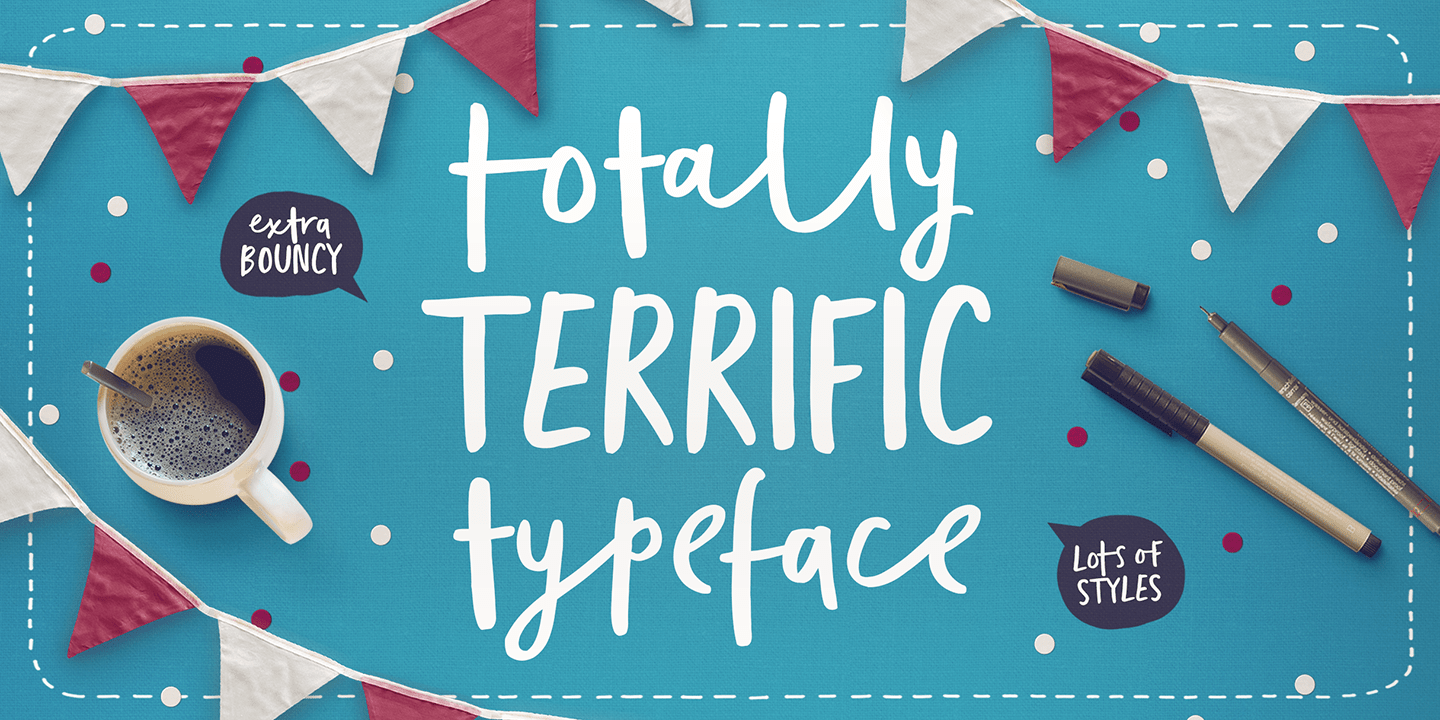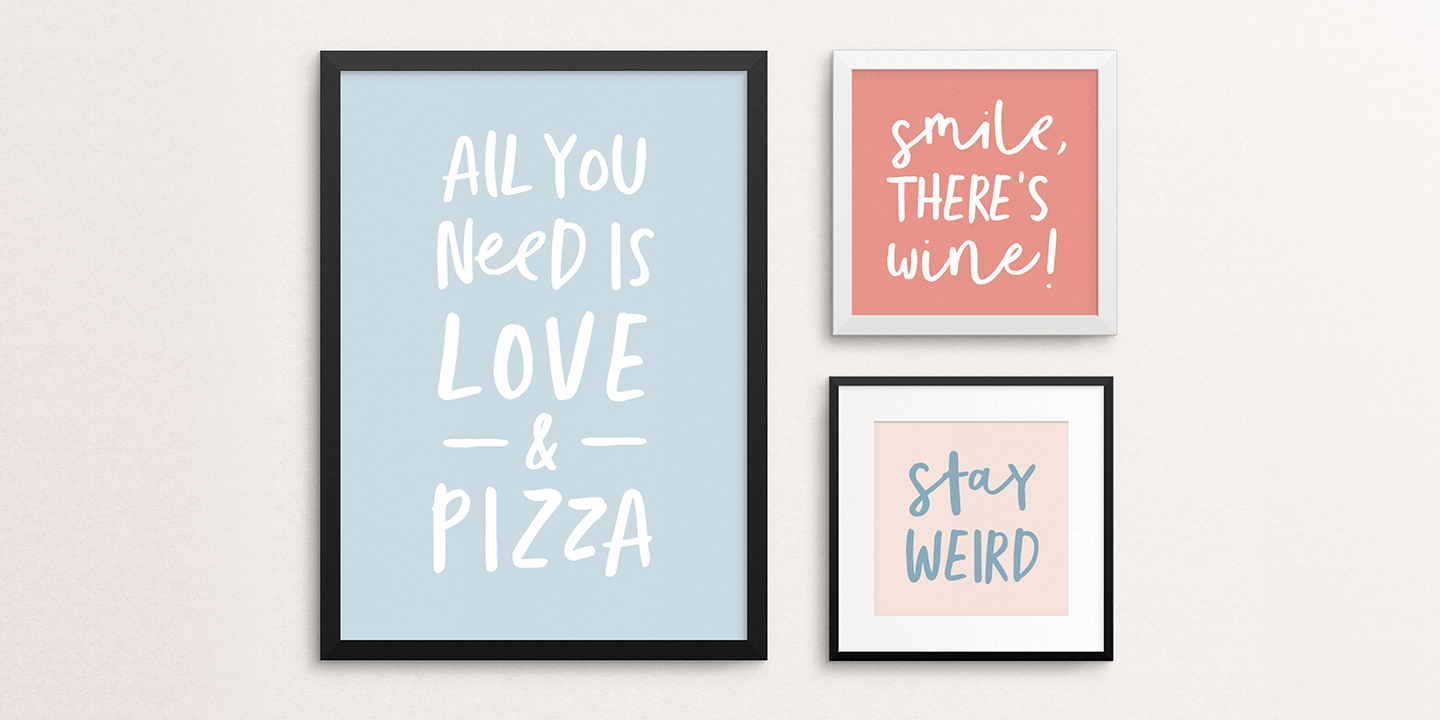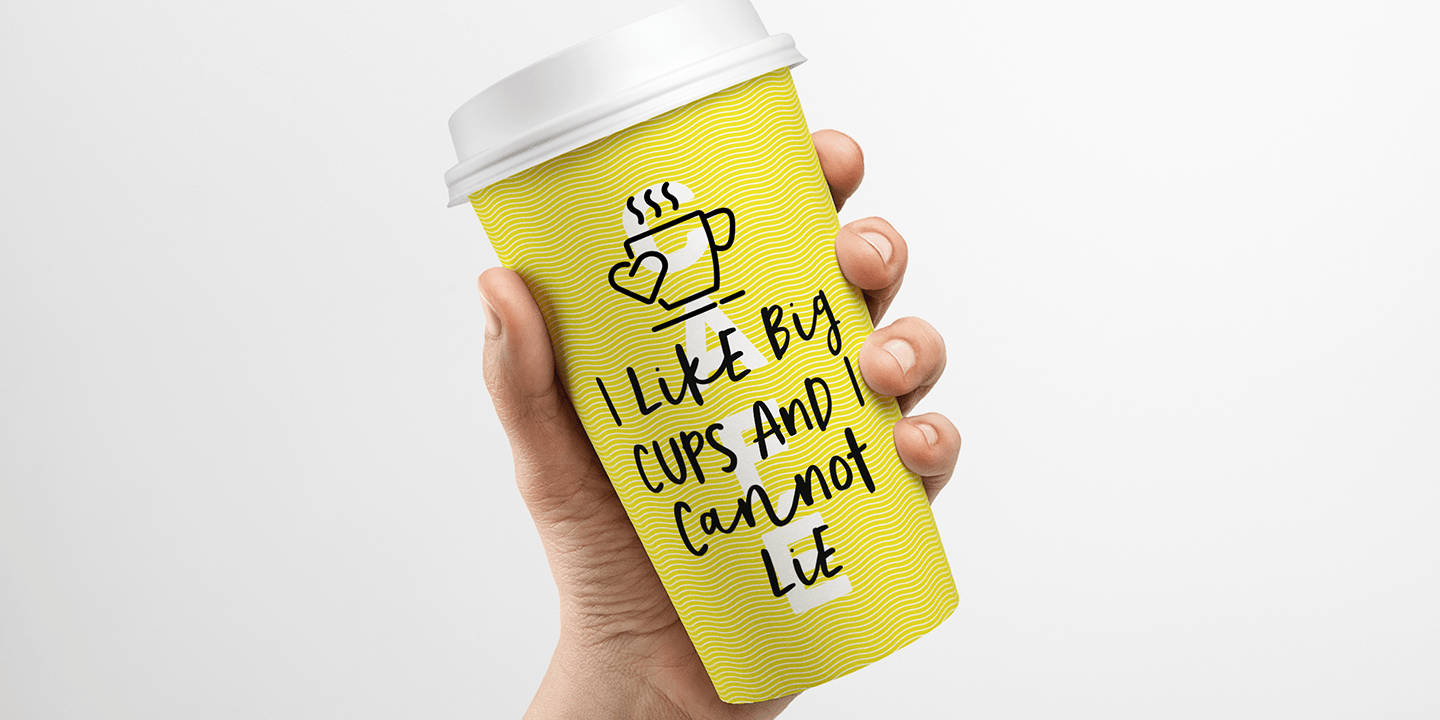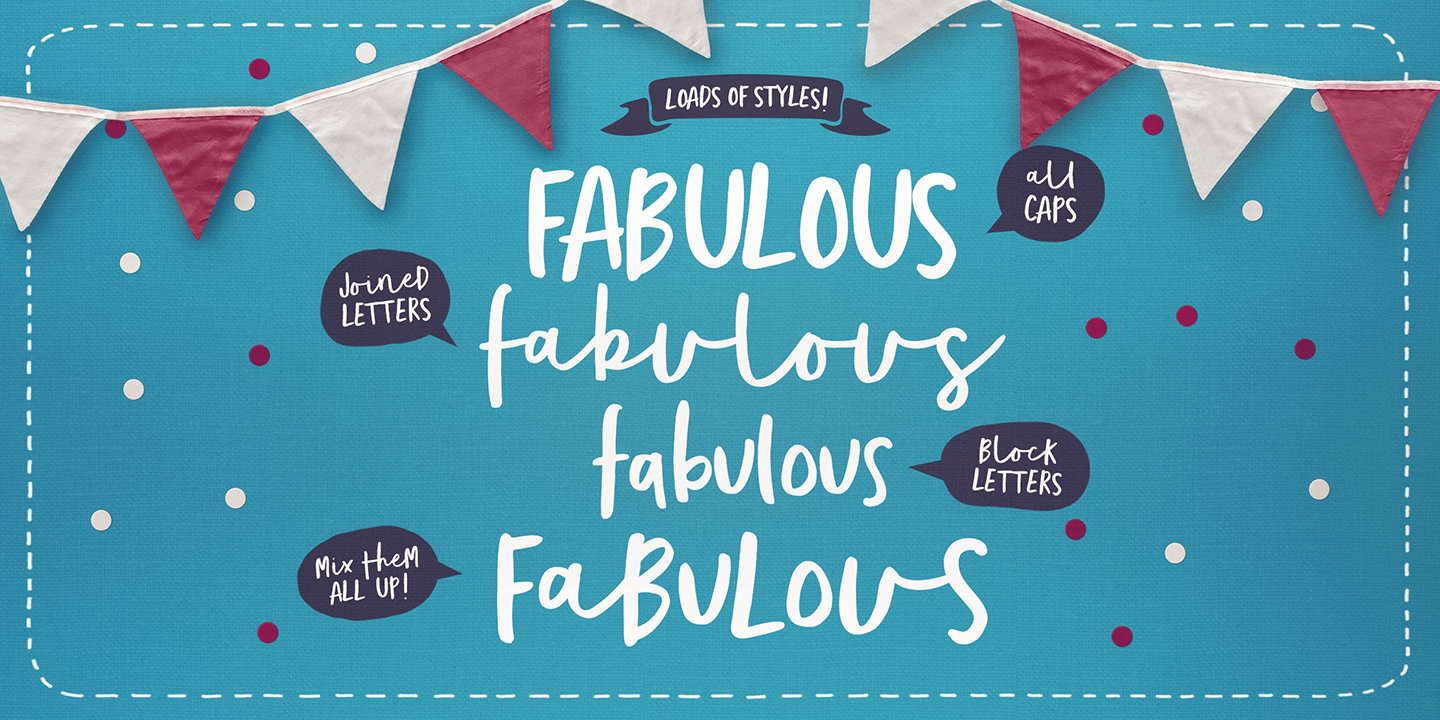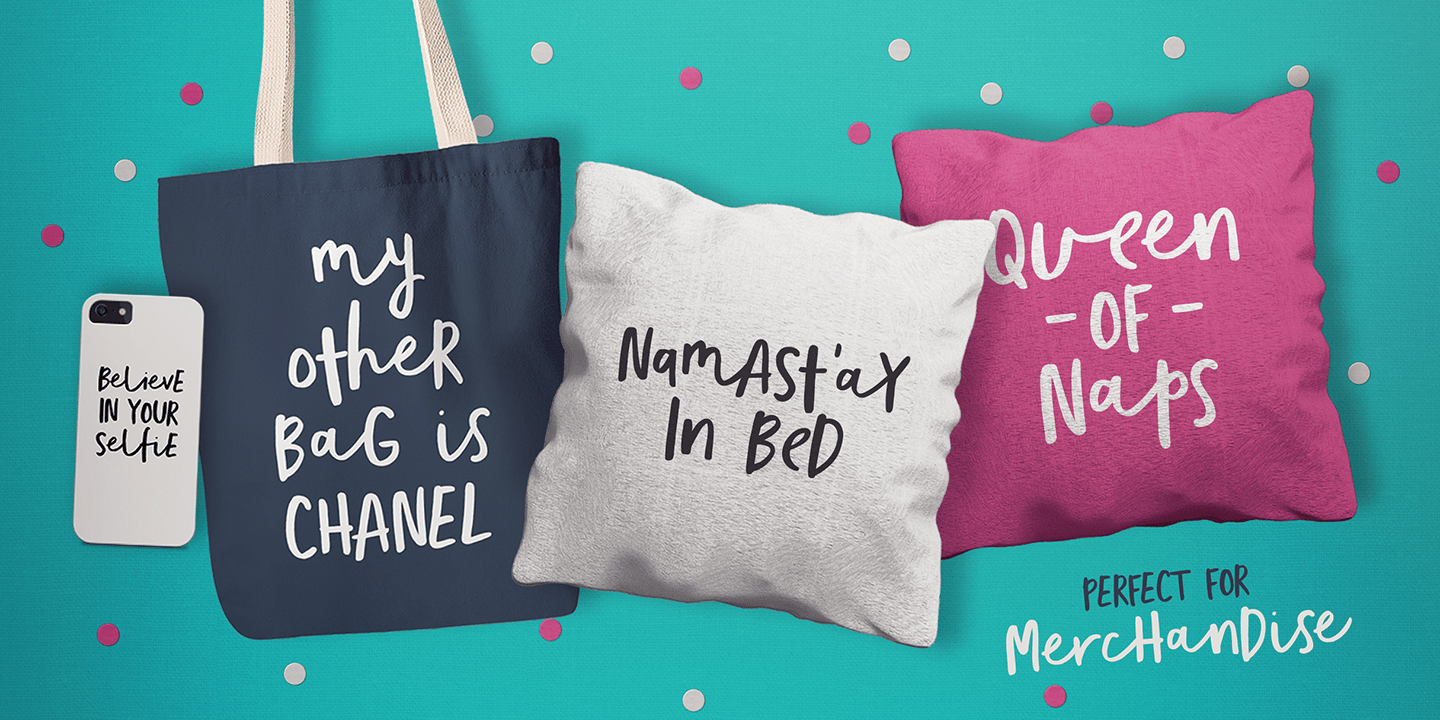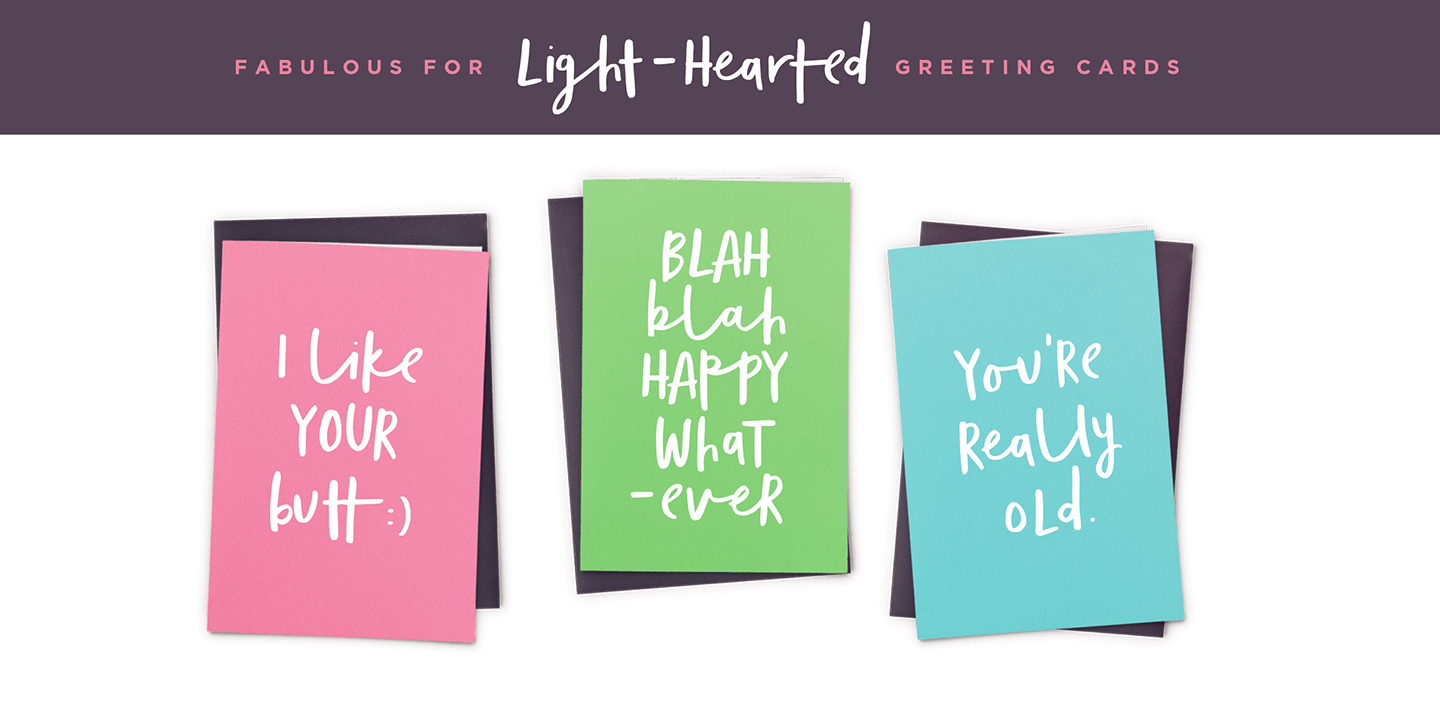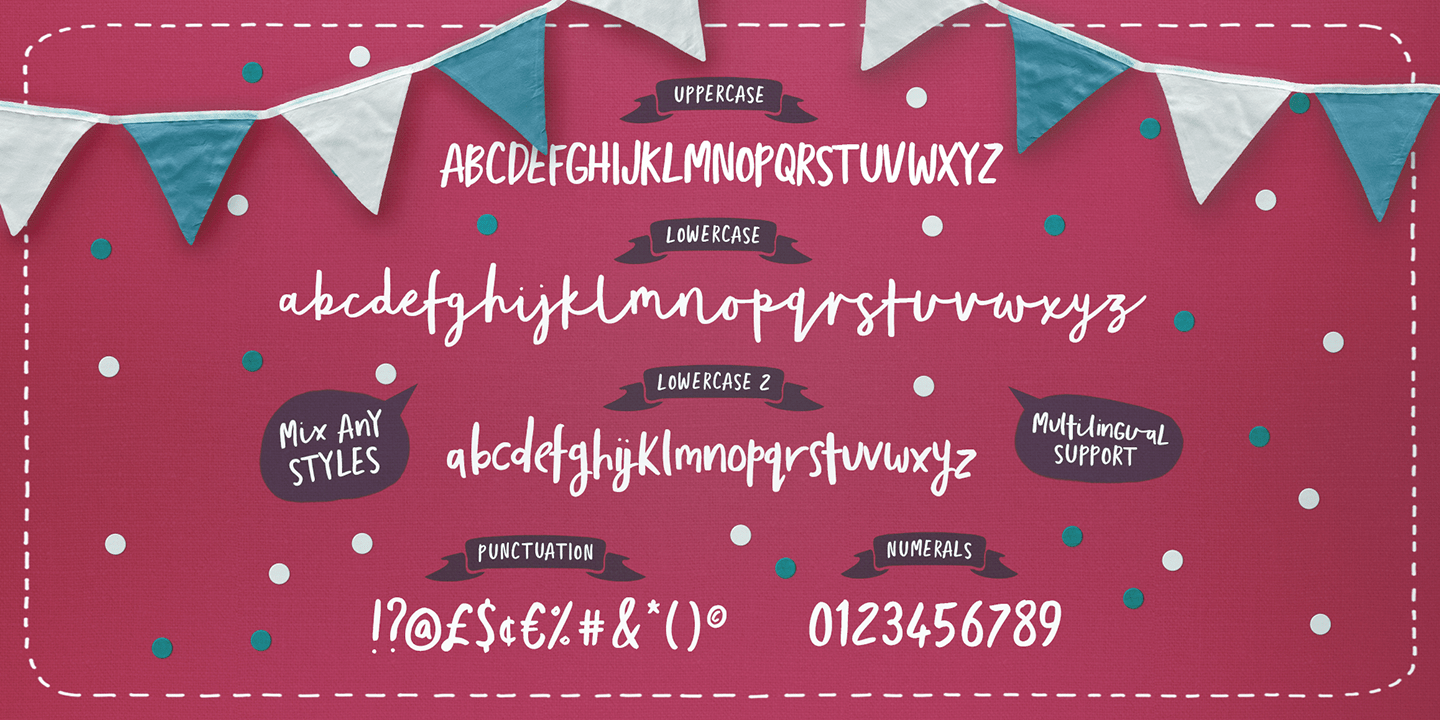
Totally Terrific
Font Family by Set Sail Studios
I love Tea. Do you love Tea? Good. Because there's a whole load of T's in the Totally Terrific Typeface! Bursting with fun and bouncy brush-strokes, this typeface will undoubtedly add a dash of cheeky playfulness to your text - ideal for greeting cards, branding, merchandise, invitations & hand-made quotes. The awesome thing about this typeface is that it's so easy to mix up the various font styles and create totally unique, hand-made looking words each time. The lowercase characters can be connected (Totally Terrific Regular) or un-connected (Totally Terrific Two), and will work in any combination of these two versions. Not only does it also look great in all-caps, but the uppercase letters will fit in with the lowercase at any location - I'm serious! Just throw one in the middle of a word, I dare you ;). Your download will contain 2 font files: Totally Terrific Regular • Contains a full set of connected lowercase letters, uppercase letters, a large range of punctuation, numerals, and multilingual support. Totally Terrific Two • A second version of the Totally Terrific Typeface, with a completely new set of un-connected lowercase characters. These are designed to work in perfect harmony with the connected set from the other font file. Just keep switching between the two fonts to create unique word layouts!